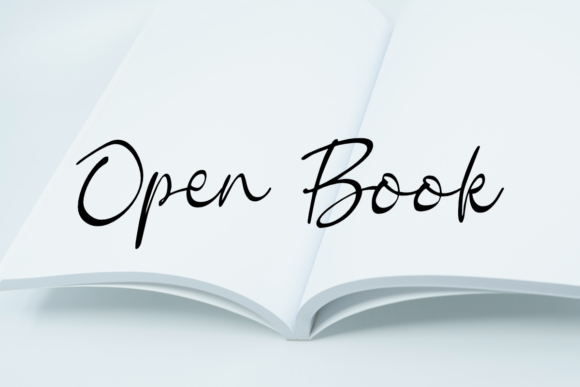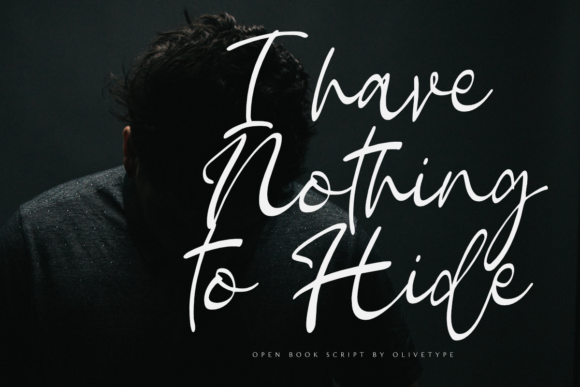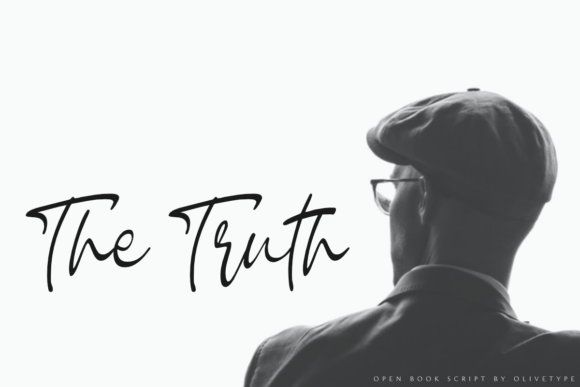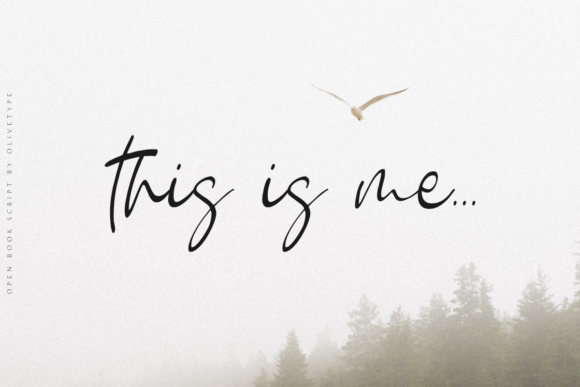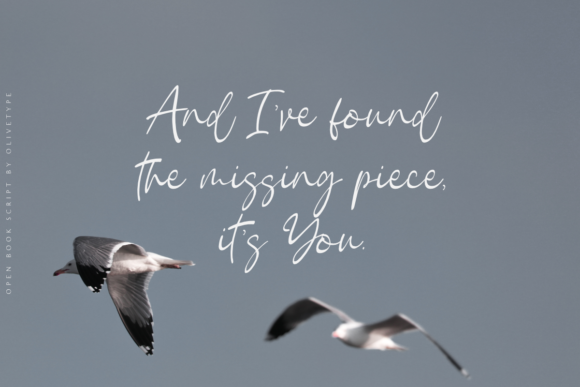
Open Book Font
About Open Book Font
Open Book is a delicate and elegant handwritten font. Its distinct and well balanced letters make this font a masterpiece. Fall in love with its incredibly versatile style and use it to create spectacular designs!